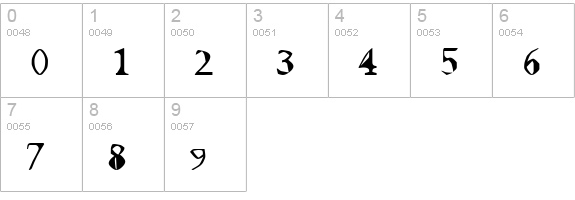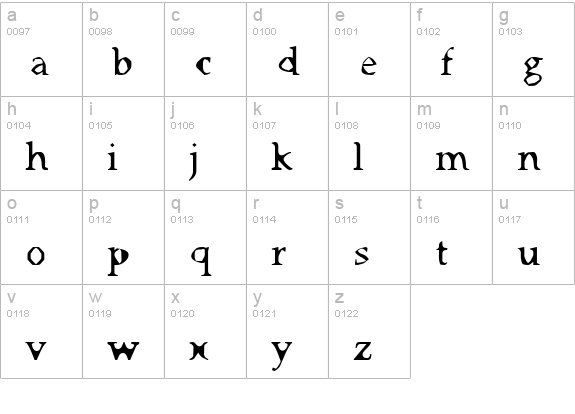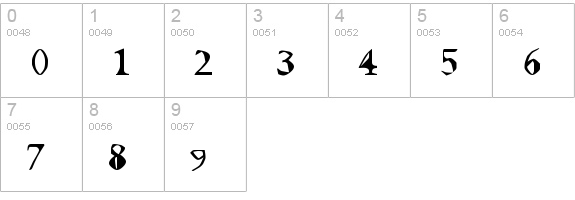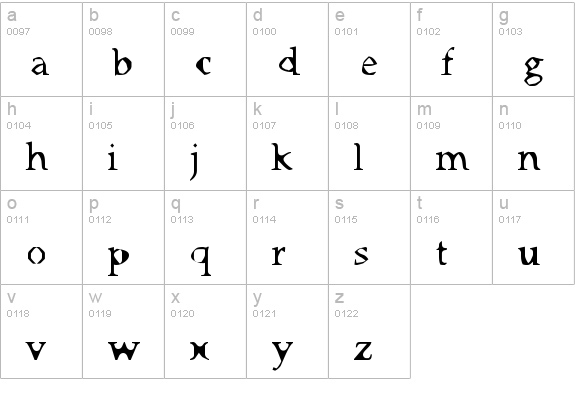
Big Ham Font Details
Introducing Big Ham font, a bold and playful typeface that exudes a sense of fun and creativity. With its exaggerated curves and thick strokes, Big Ham is perfect for making a statement in your designs. Whether you're working on a poster, logo, or branding project, this font will surely catch the eye of your audience. And the best part? Big Ham font is completely free to download at FontsMarket.com. So go ahead and add a touch of whimsy to your projects with this delightful and eye-catching typeface. Let your creativity run wild with Big Ham font!